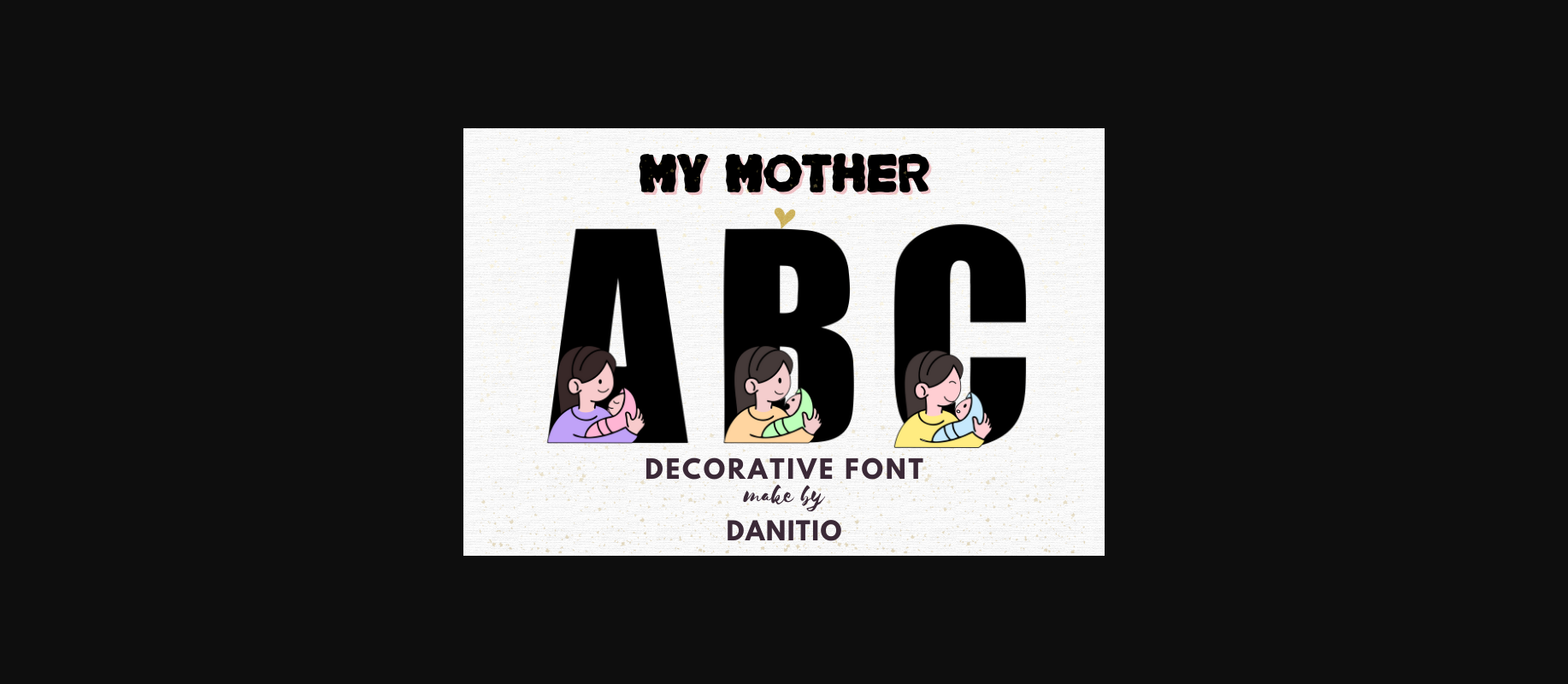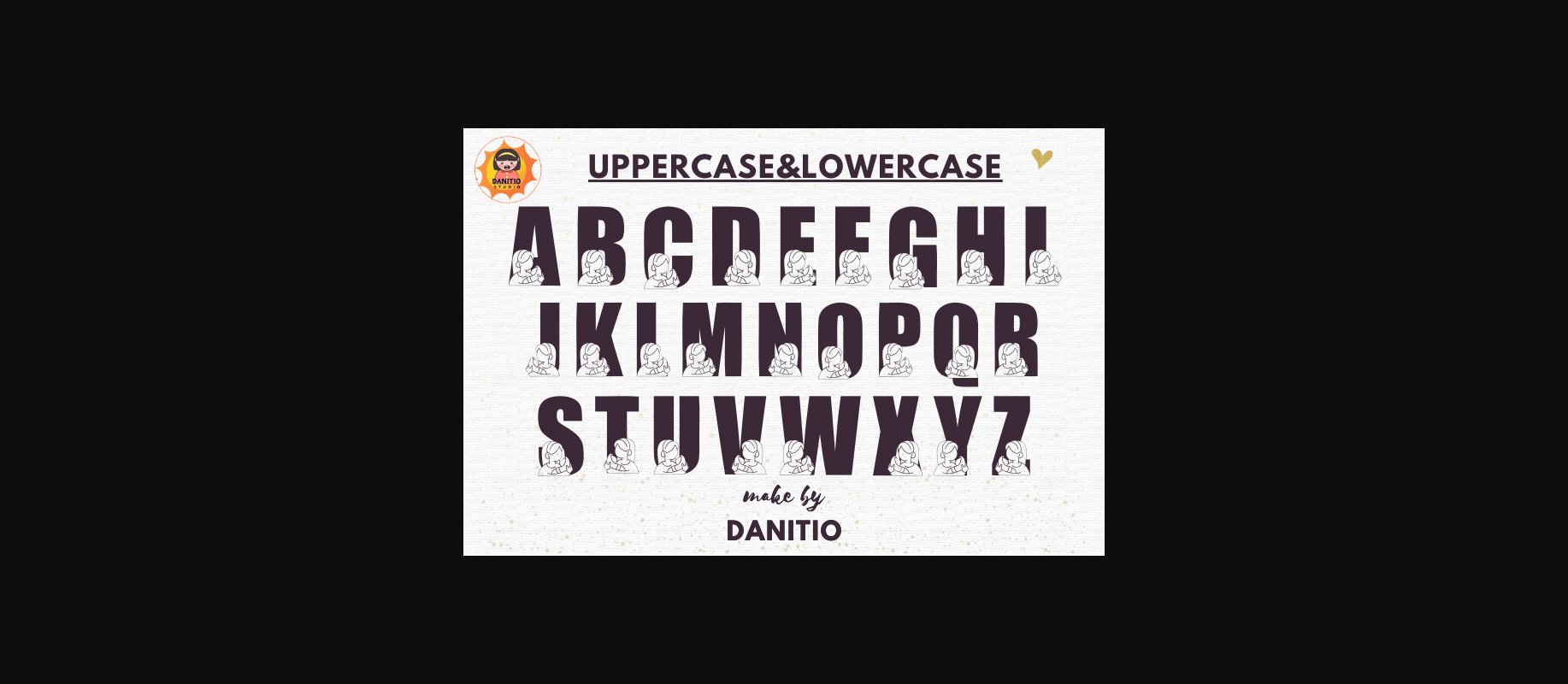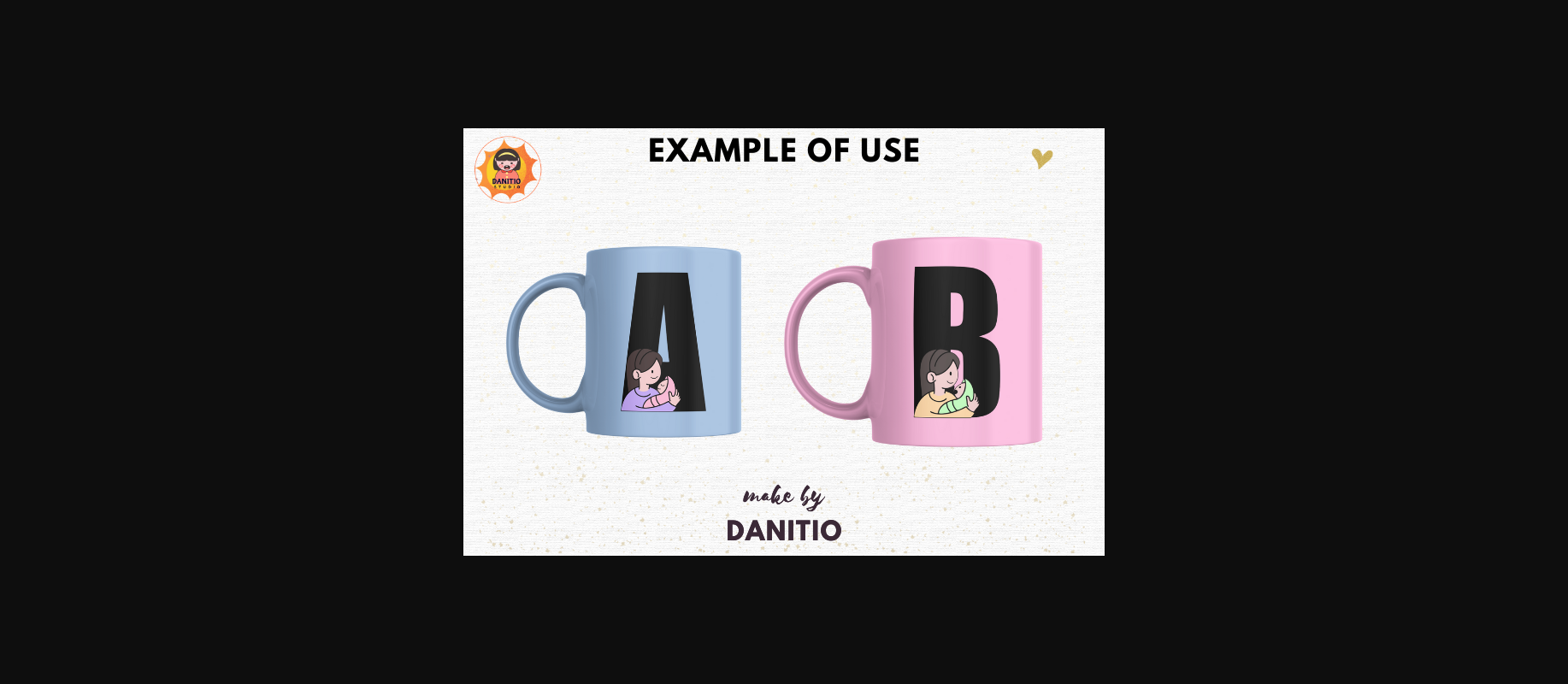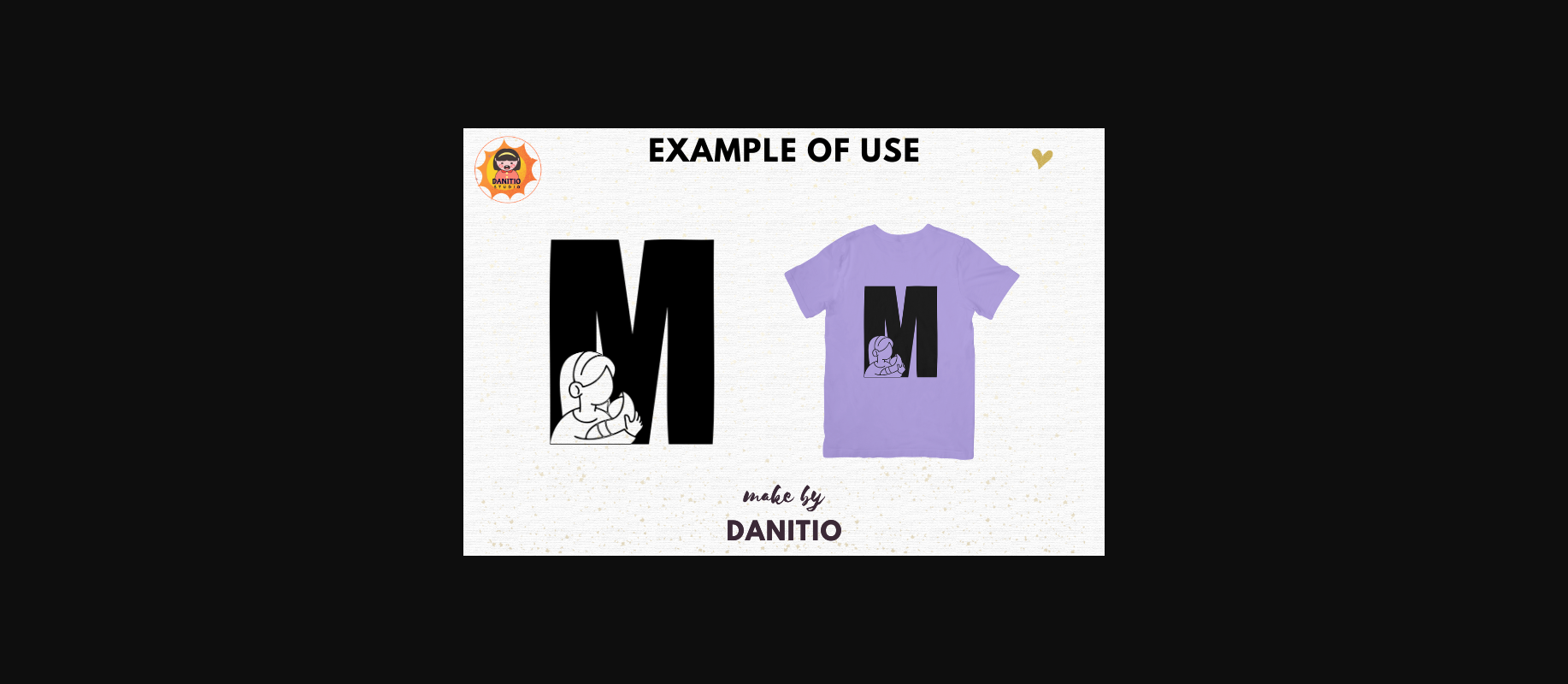
My Mother Font
About My Mother Font
My Mother is a charming, decorative font that adds a unique twist to any project. Mother and baby illustration font that gives beauty and warmth Showing love between mother and child Suitable for Mother’s Day. The letters are bold and easy to read. Ideal for posters, invitations and greeting cards. and use it to create beautiful artwork Eye-catching social media posts cute greeting cards or any other products you think are appropriate. Hope you enjoy using my fonts.